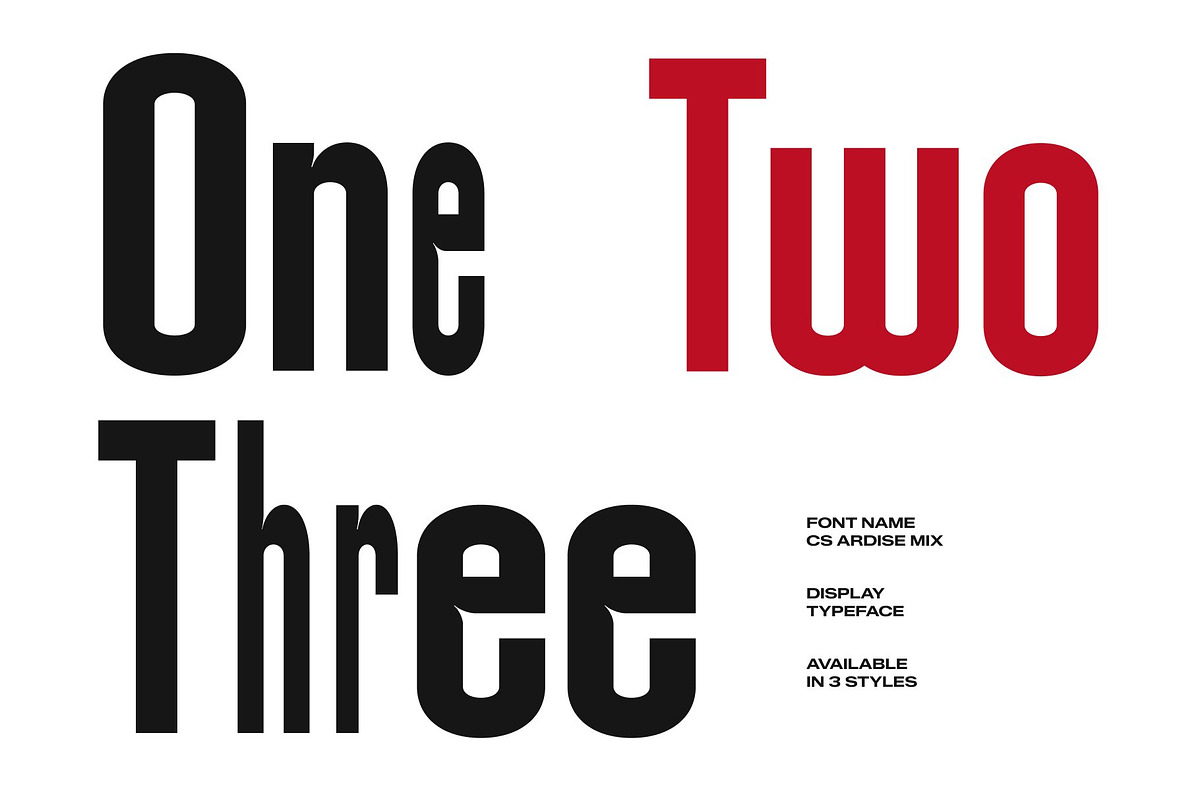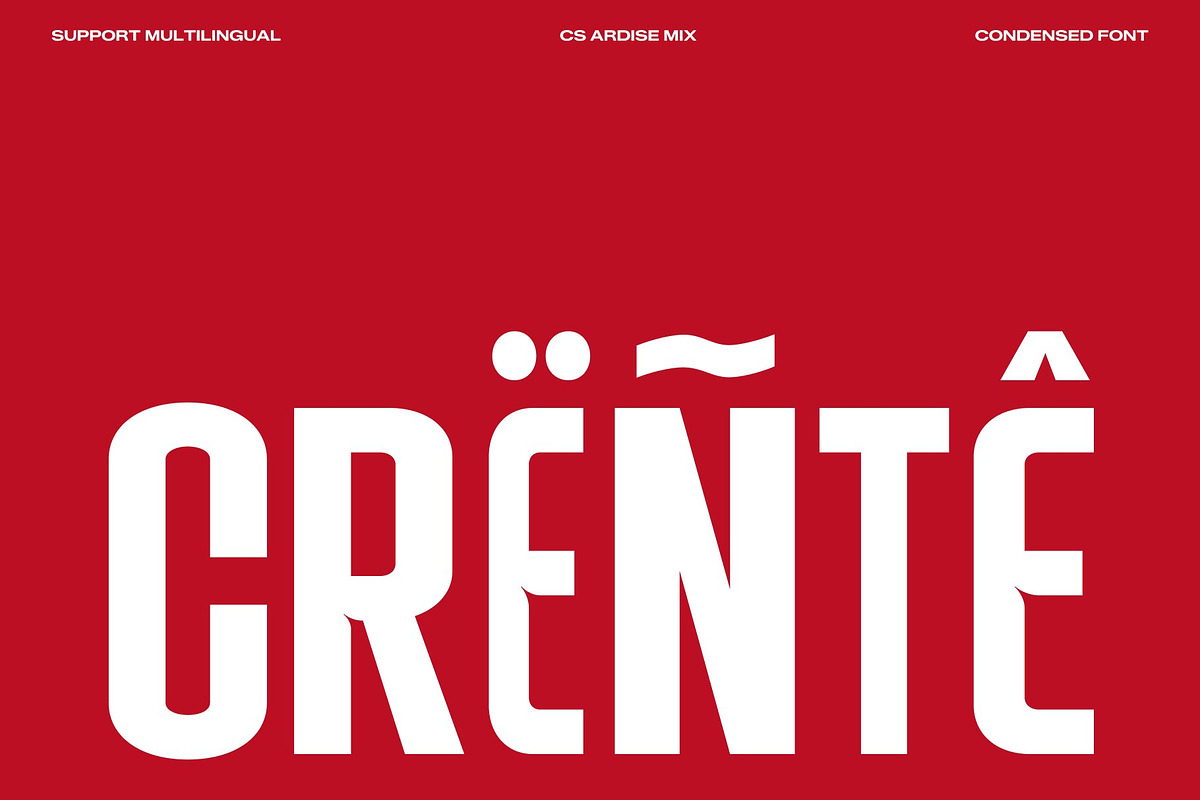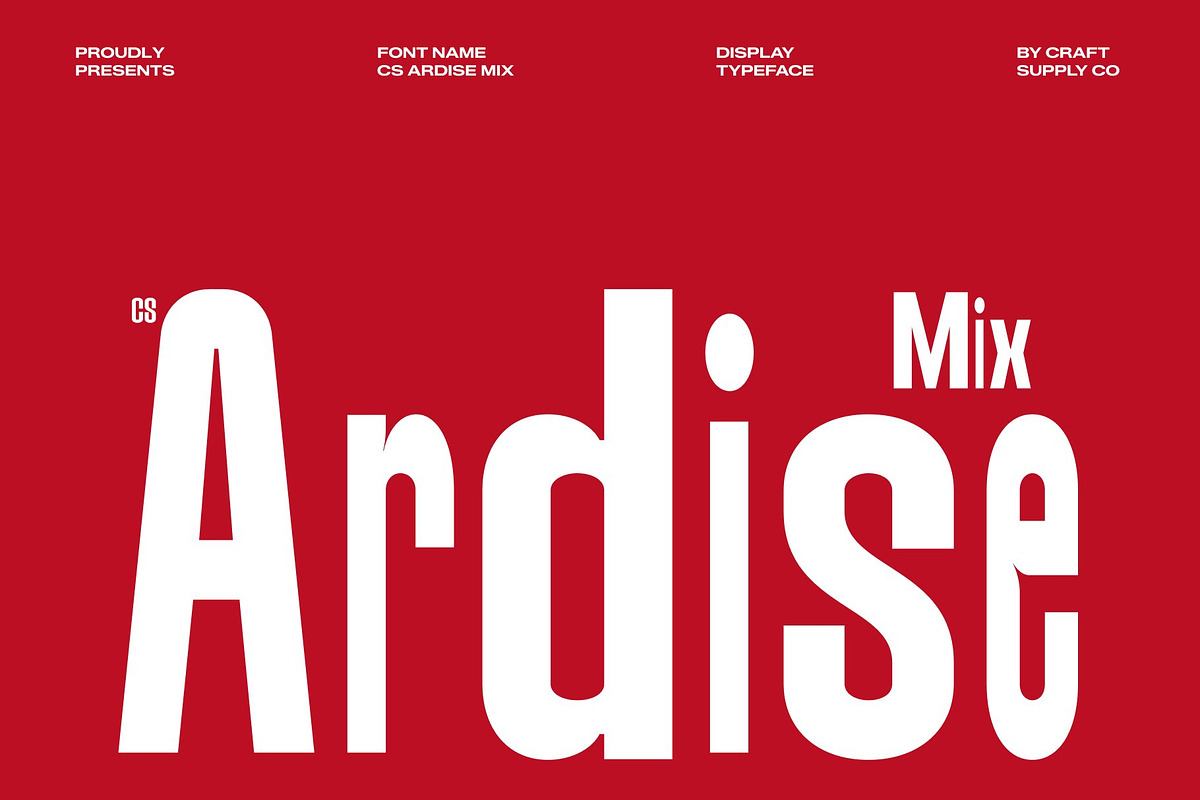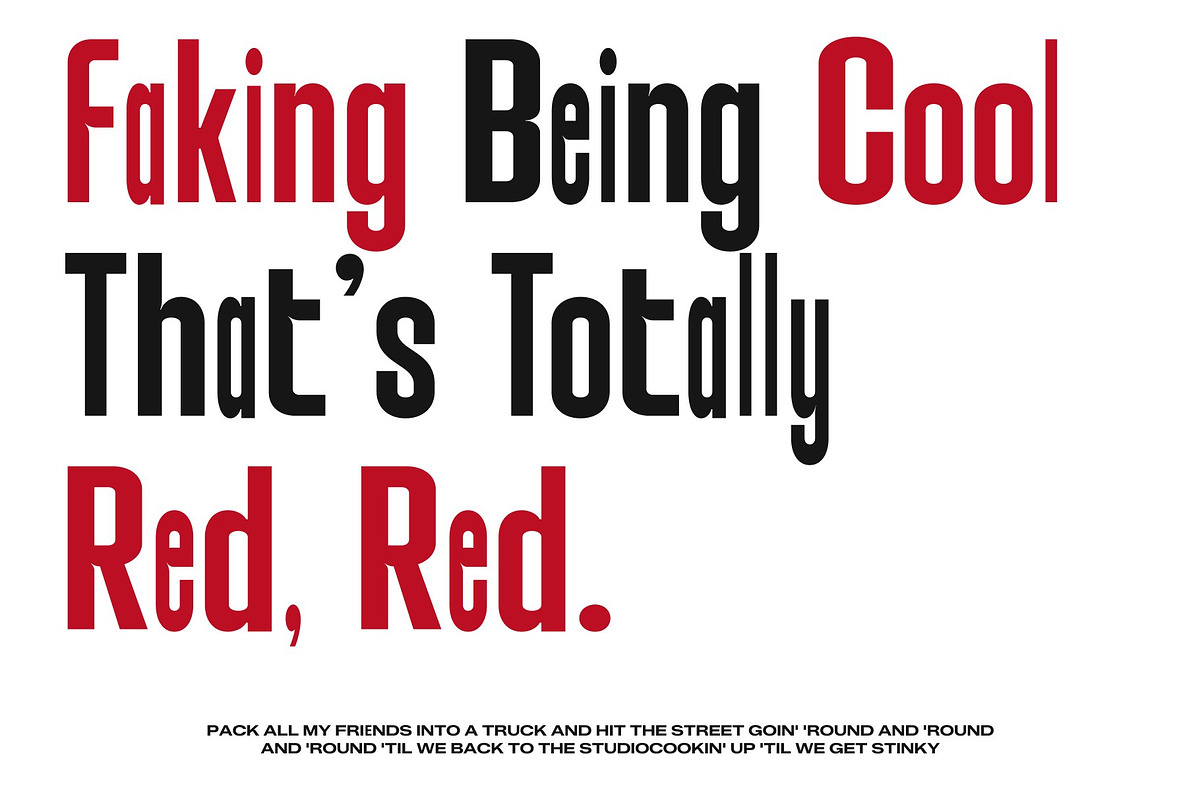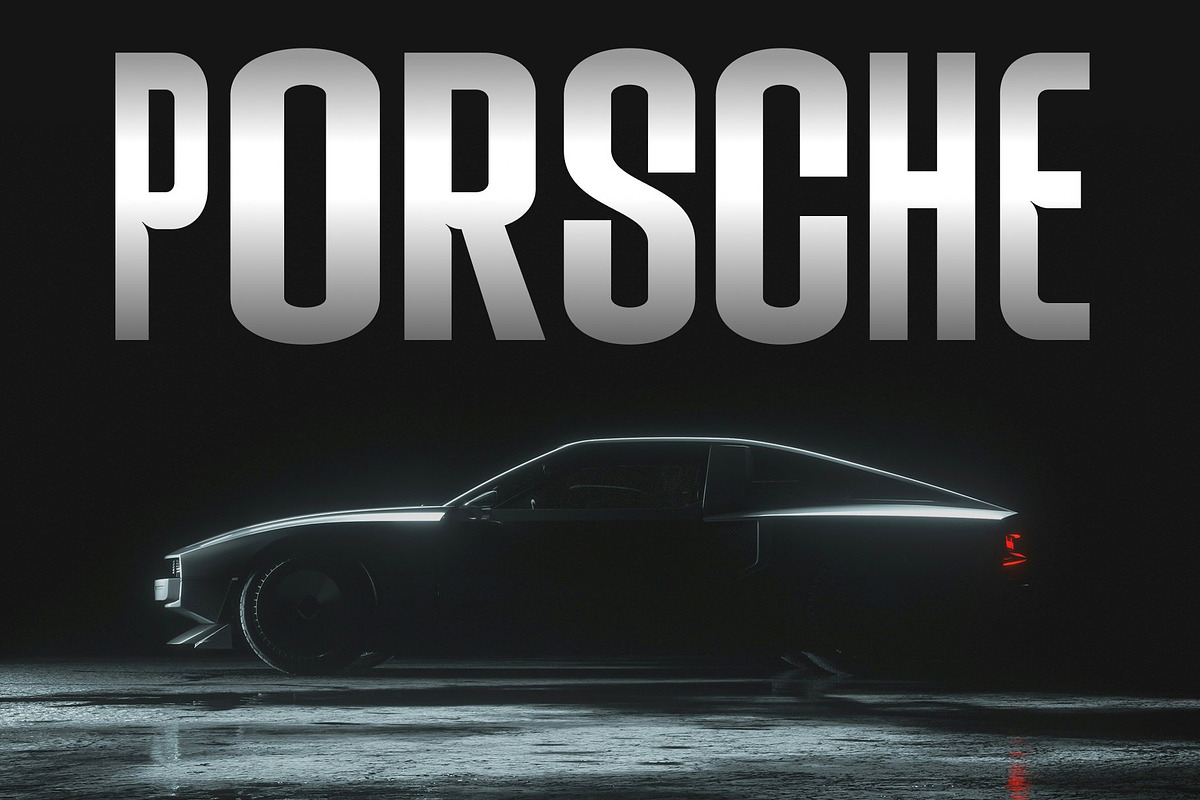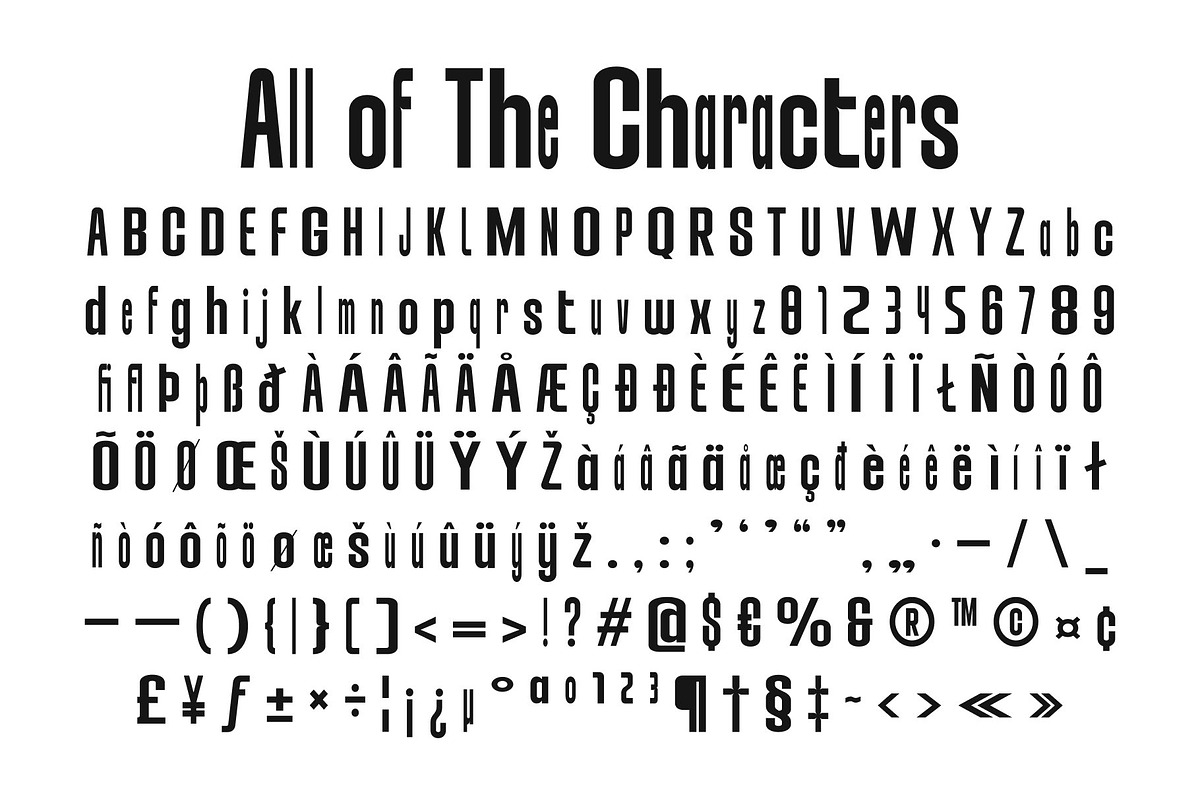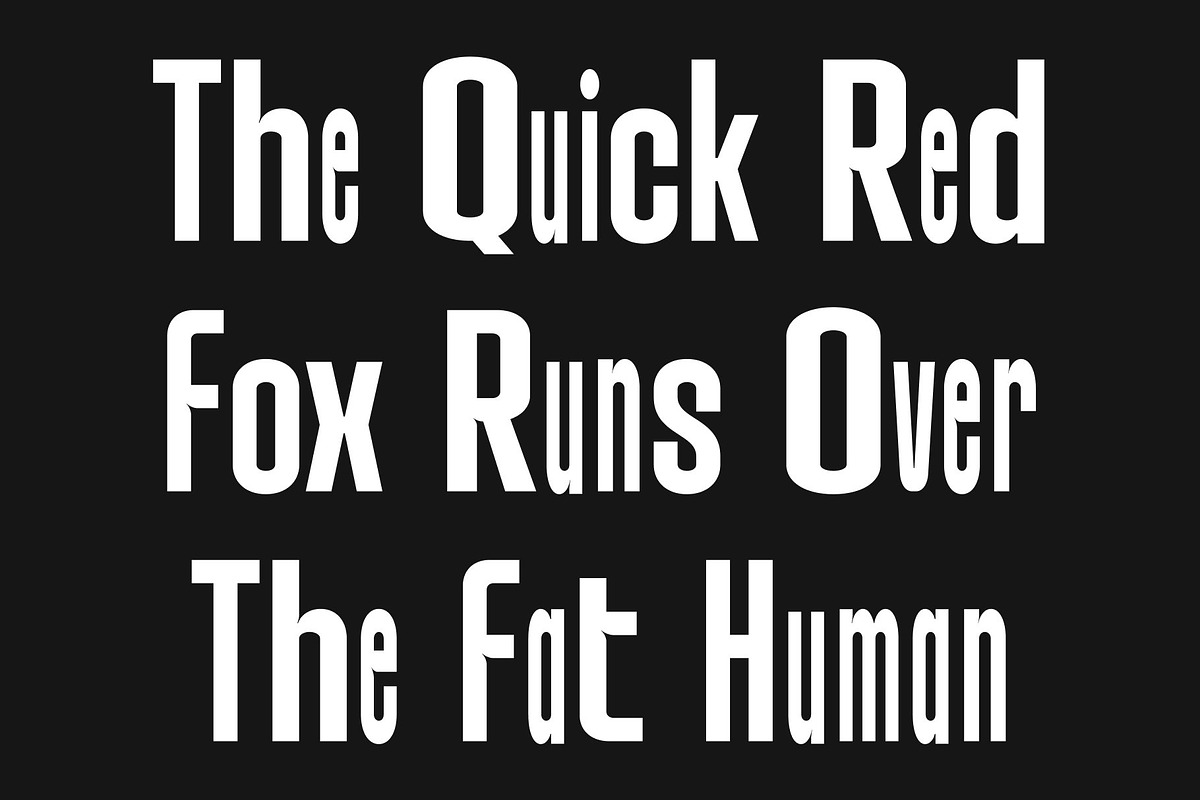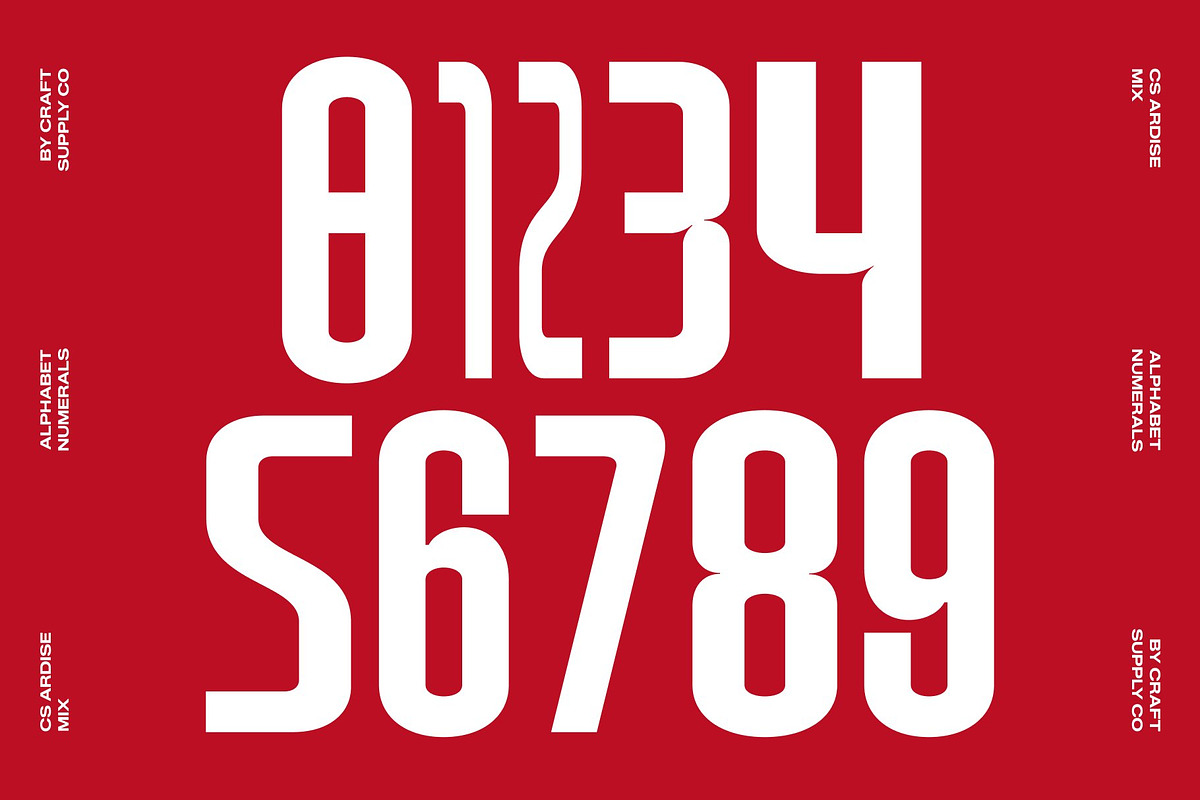
CS Ardise Mix
CS Ardise Mix – Condensed Sans Serif Font: Industrial Strength with Modern Efficiency
Condensed Sans Serif with Mixed Style Character This is a modern condensed sans serif font designed to deliver maximum impact while maintaining exceptional space efficiency. Built with streamlined proportions, sturdy construction, and contemporary precision, this typeface introduces a distinctive mixed-style concept that adds contrast, rhythm, and personality to every composition.
A Dynamic Blend of Bold and Regular Letterforms The defining feature of this font lies in its creative fusion of bold and regular styles. This mixed-weight approach creates strong typographic hierarchy and visual movement, making layouts feel more engaging and expressive. The contrast between heavy and balanced forms enhances readability while adding a contemporary edge that elevates both headlines and branding applications.
Industrial Character with Contemporary Precision This font incorporates subtle industrial-inspired details that strengthen its visual identity without sacrificing versatility. Its sturdy strokes, clean geometry, and vertical emphasis create a confident and professional appearance. The combination of industrial influence and modern refinement results in a typeface that feels assertive, reliable, and perfectly suited for contemporary design environments.
Perfect for Headlines, Posters, and Bold Branding From advertising campaigns and editorial headlines to posters, packaging, and brand identities, this font excels wherever strong communication is required. Its condensed construction allows more content to fit comfortably into limited spaces while maintaining excellent clarity and visual impact.